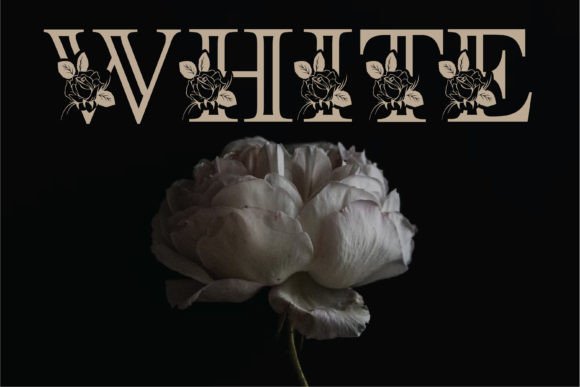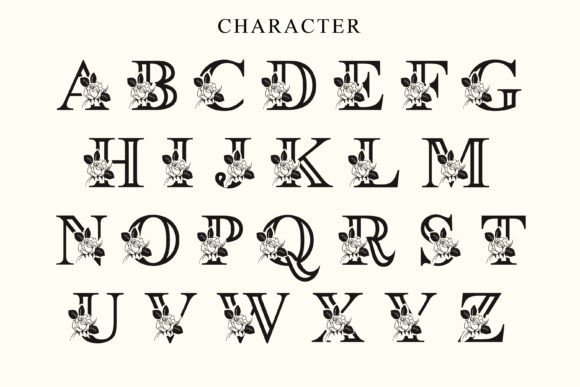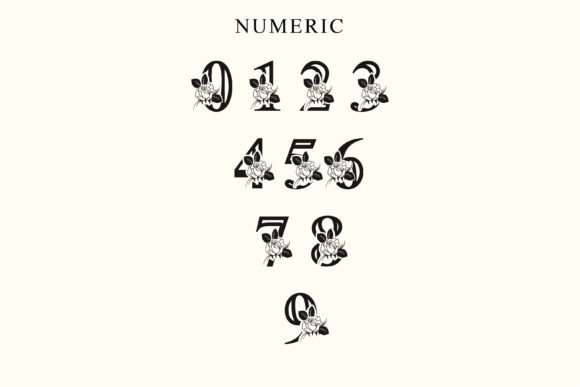
Introduction to Rosera Monogram Font
Have you ever found yourself rummaging through your design files, searching for the perfect font to elevate your creative project? You know, that moment when everything falls into place, and your design goes from ordinary to extraordinary? That’s exactly what happened when I stumbled upon the Rosera Monogram Font. Its delicate, intricate details had me hooked from the very start, and I knew I had to share it with fellow designers and creatives.
As a valuable resource for designers, the Rosera Monogram Font offers a unique combination of high-quality design and transparent background, making it perfect for creating stunning invitations, beautiful stationery art, and eye-catching social media posts. Whether you’re working on a personal project or collaborating with clients, this font is sure to bring your designs to life.
Key Features of Rosera Monogram Font
- High-quality, elegant design perfect for creative projects, such as wedding invitations, branding, and packaging.
- Comes with a transparent background, allowing for seamless integration with various design elements and backgrounds.
- Includes a range of font styles, from cursive to bold, to suit different design needs and preferences.
- Features a large character set, including uppercase and lowercase letters, numbers, and punctuation marks.
- Designed with a high resolution, making it suitable for use in both digital and print media, including posters, business cards, and brochures.
Honest Review: Rosera Monogram Font
I recently had the chance to work with the Rosera Monogram Font, and I’m excited to share my thoughts on this beautiful design resource.
- ✨ High-quality design: The font is well-crafted, with intricate details and a elegant feel.
- ✨ Versatile: The Rosera Monogram Font can be used for a variety of creative projects, from wedding invitations to personal branding.
- ⚠️ Limited character set: The font only includes a few characters, which may not be sufficient for complex text-based projects.
- ⚠️ No transparent background: The font is a solid design, which may not be ideal for projects that require a transparent background.
Overall, I’m impressed with the Rosera Monogram Font. Its high-quality design and versatility make it a great addition to any designer’s toolkit. While it has some limitations, I believe the benefits outweigh the drawbacks. If you’re looking for a beautiful, elegant font for your next creative project, the Rosera Monogram Font is definitely worth considering.
Tips for Getting the Most Out of Rosera Monogram Font
For the best results, use Rosera Monogram Font on a high-quality design resource with a transparent background. This will allow the intricate details of the font to shine through. You can also experiment with different font sizes and colors to create a unique and creative project.
Rosera Monogram Font is perfect for creating custom logos, invitations, and other design elements for your creative project. Its high-quality design and transparent background make it an ideal choice for designers looking for a unique and professional look.
Yes, the Rosera Monogram Font has a transparent background, making it easy to use on various design backgrounds. This feature is especially useful for creative projects that require a seamless integration of fonts and graphics.
Q: Can I edit the Rosera Monogram Font for my specific design needs?
The Rosera Monogram Font is a high-quality design resource that can be easily edited using popular design software such as Adobe Illustrator or Canva. You can customize the font to fit your specific design needs, including changing colors, sizes, and styles.